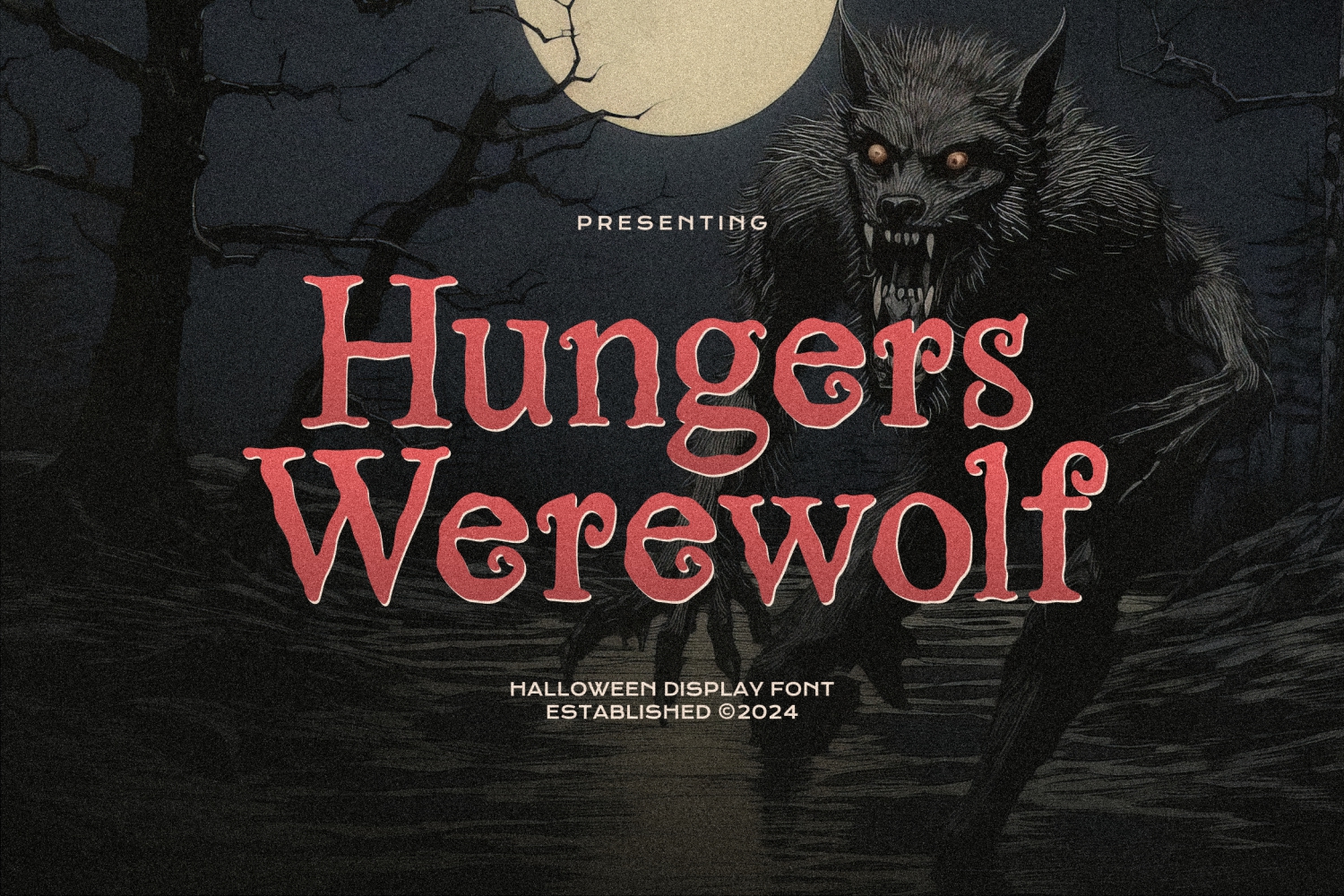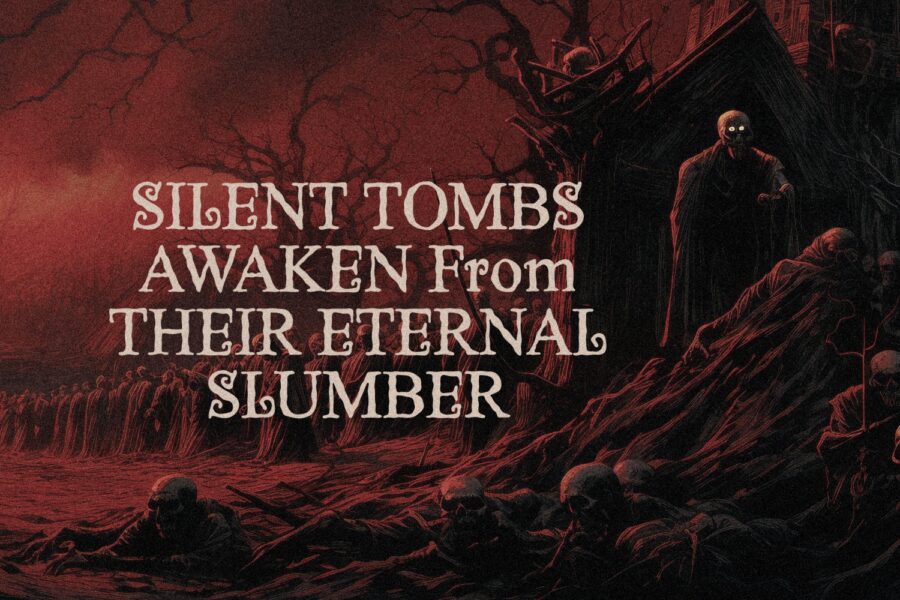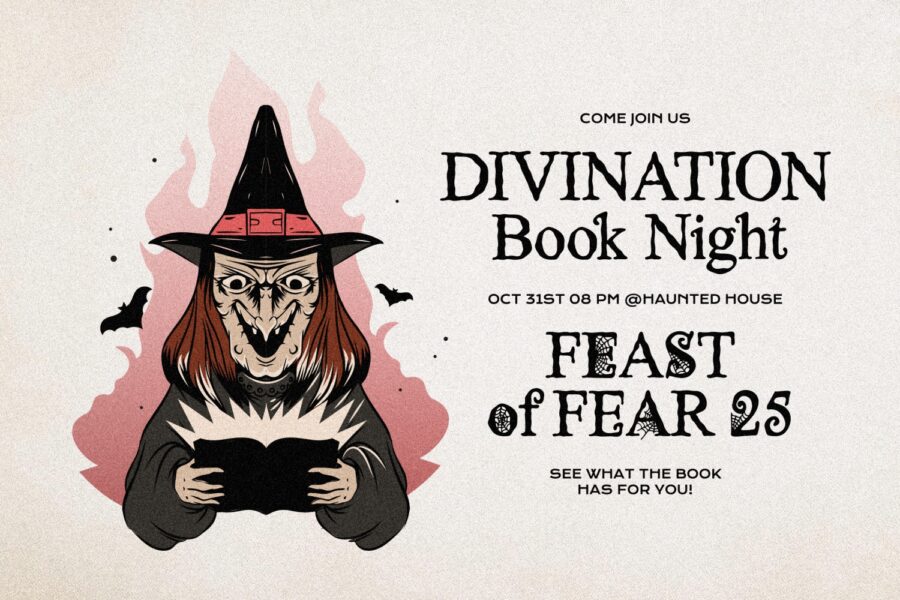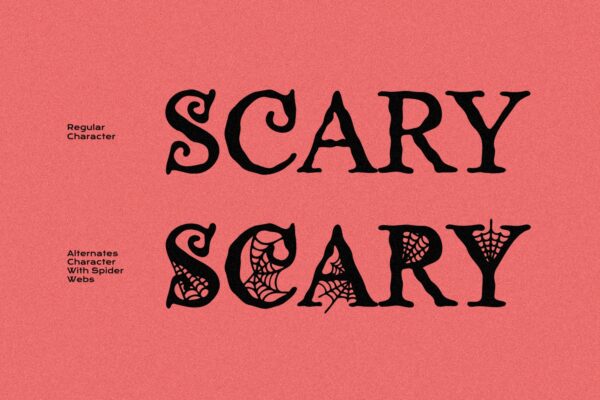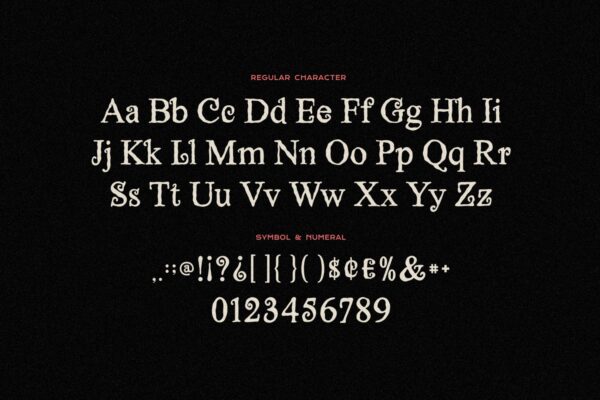
Hungers Werewolf is a haunting Halloween display font that captures the eerie charm of classic horror with a modern twist. Its jagged, hand-crafted letterforms evoke the unsettling atmosphere of moonlit forests, ancient curses, and lurking creatures of the night. Perfect for horror movie posters, haunted house flyers, creepy invitations, and dark fantasy book covers, this typeface delivers a spine-chilling presence that instantly sets a sinister tone.
The font includes uppercase, lowercase, numbers, punctuation, and special alternate characters adorned with spider web details, ideal for adding extra creepiness to your titles. With its gothic-inspired elegance and horror-themed personality, Hungers Werewolf is the perfect choice for any design that needs a dose of fear, mystery, and supernatural energy.